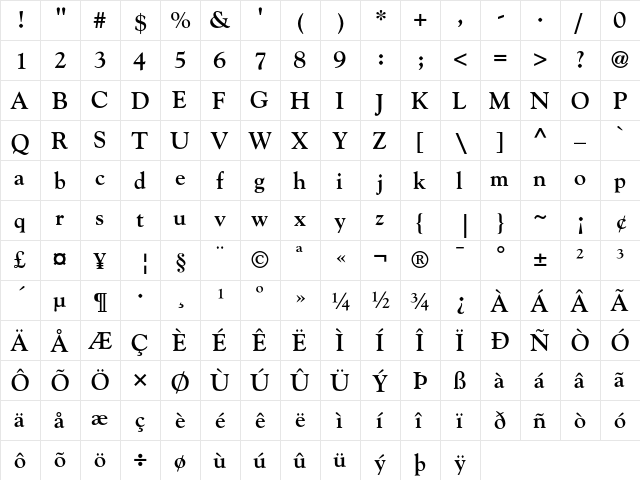
Goudy Bold
Design Context for Goudy Typeface
Goudy offers clean, dependable letterforms without strong stylistic allegiance, making it a practical choice for designers who need flexibility. Its bold stroke weight gives it real presence on the page.